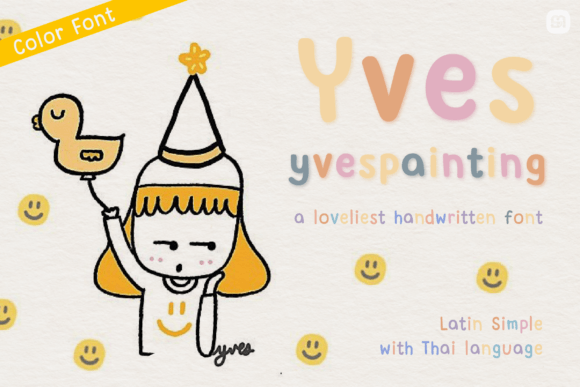
Journey into the world of Yves Yvespainting Font, a chromatic masterpiece that dances across your screens with playful charm! This resplendent font family is a visual symphony, a harmonious blend of colors that ignite imagination and unleash creativity.
Step into a realm where letters are more than mere characters; they are vibrant strokes of artistry, each carrying a unique personality. Yves Yvespainting Font is the perfect muse for your creative expressions, whether you're a seasoned designer or a budding artist seeking inspiration.
With Yves Yvespainting Font, your designs will transcend the ordinary and embrace the extraordinary. Picture your words adorned in a kaleidoscope of hues, transforming simple text into captivating works of art.
Dive into a world of boundless possibilities, where Yves Yvespainting Font becomes your trusted companion. Create captivating logos that demand attention, design whimsical invitations that spark joy, or craft stunning social media posts that turn heads. The possibilities are endless, limited only by the depths of your imagination.
Yves Yvespainting Font is more than just a collection of letters; it's an experience, a journey into a world where creativity knows no bounds. Embrace the magic of color and transform your designs into masterpieces.
- Unleash your creativity with a symphony of colors, transforming ordinary text into captivating works of art.
- Create designs that radiate playfulness and authenticity, perfect for capturing the hearts of children and adults alike.
- Effortlessly design eye-catching logos, whimsical invitations, and captivating social media posts that leave a lasting impression.
- Experience the limitless possibilities of Yves Yvespainting Font, where imagination knows no bounds.